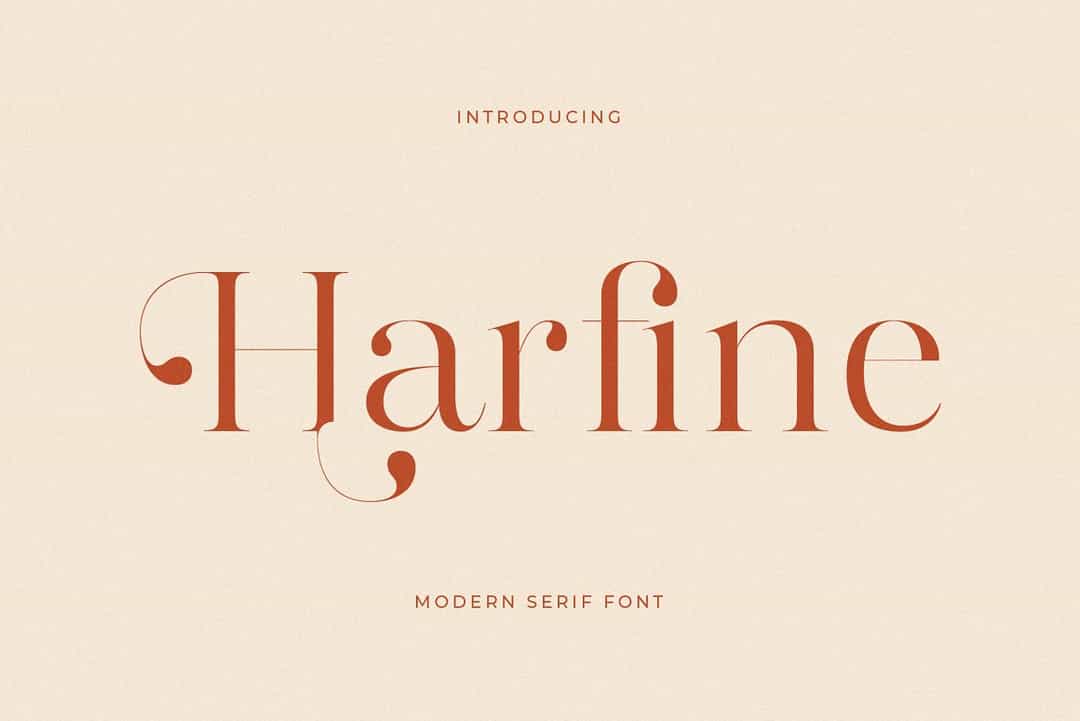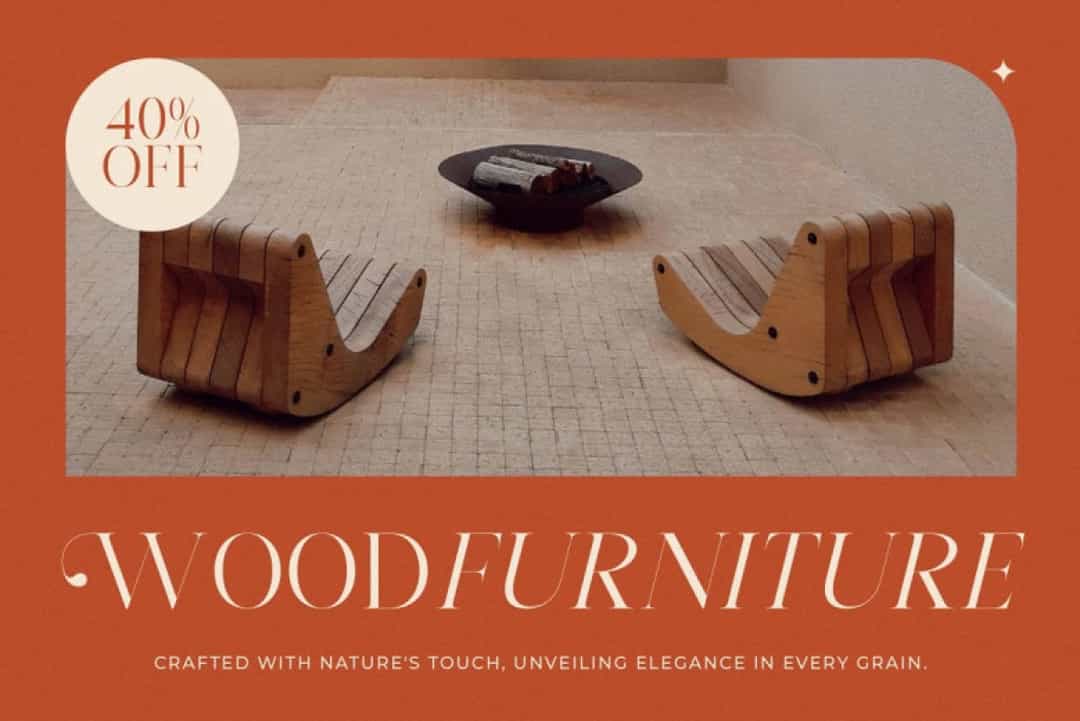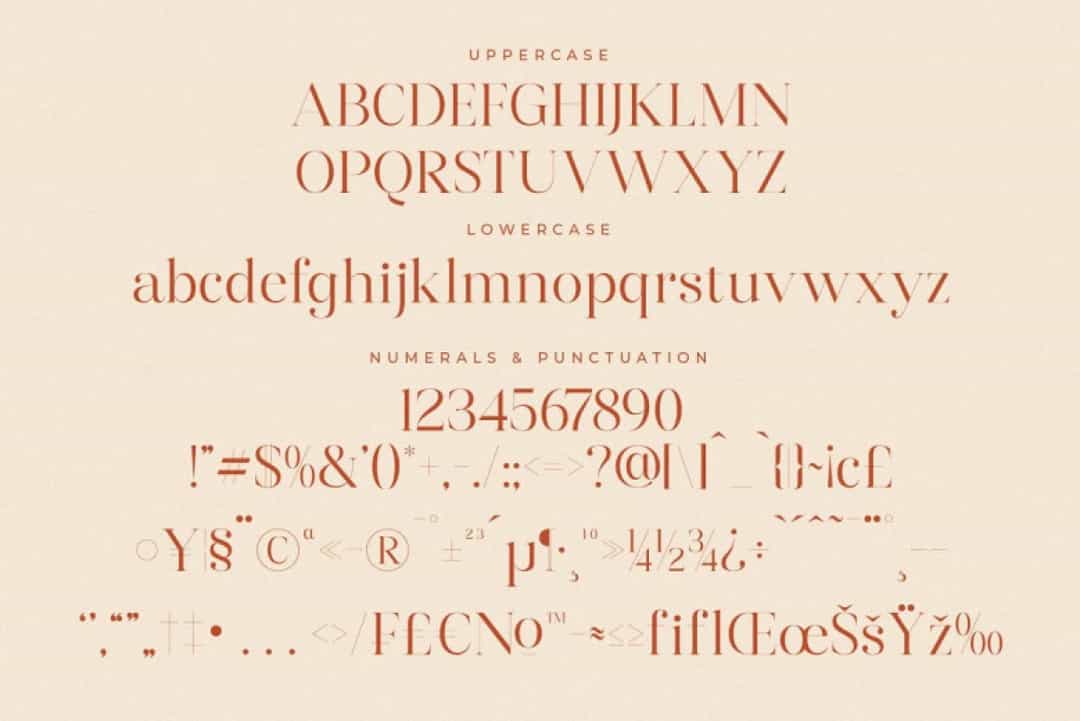
Harfine Contemporary serif font from Letterena is ideal for use in logo design, branding and homeware design projects, packaging designs such as product mugs posters quotes shopping bags T-shirts book covers name cards.